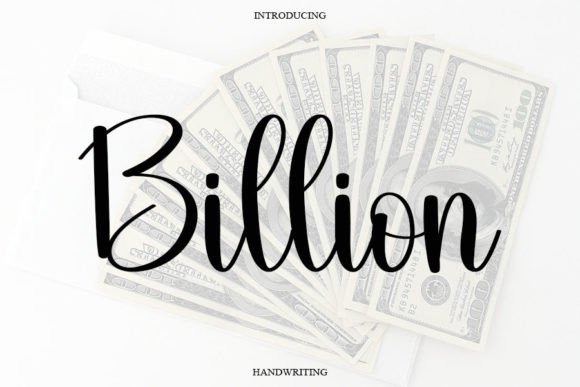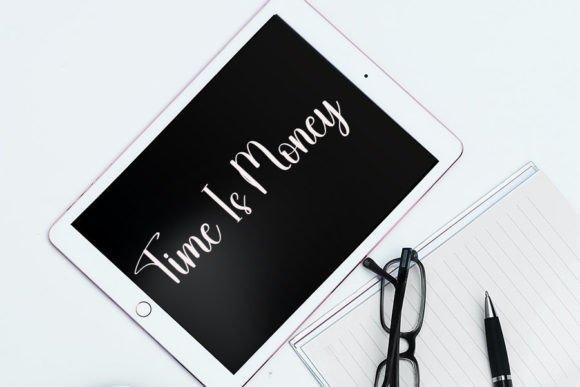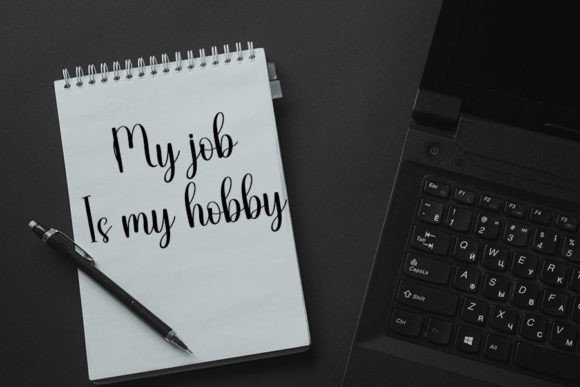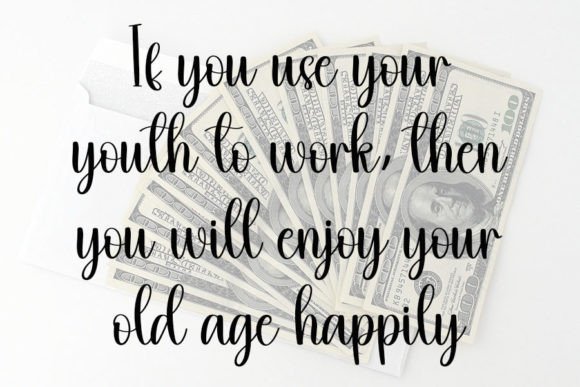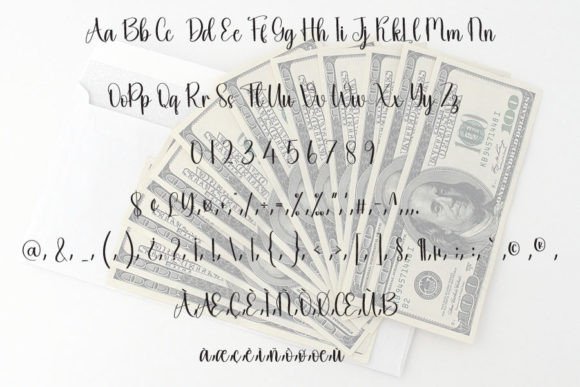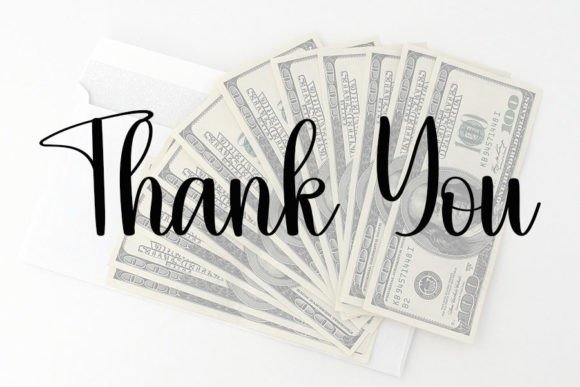
Billion Font
About Billion Font
Billion is a fun and friendly handwritten font. Whether you’re using it for crafts, digital design, presentations, or making greeting cards, this font has the potential to become your favorite go-to font, no matter the occasion!